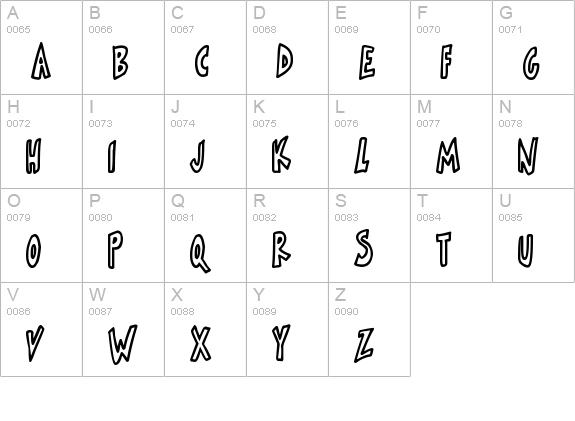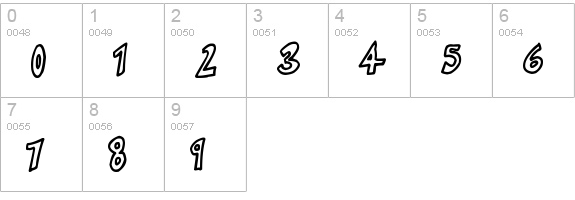
Skinnymalink is a free for personal use font in the Fancy > Comic category, designed by Darrell Flood. It has been downloaded 13 times and is available for Windows, Mac and Linux.
Skinnymalink font is a sleek and modern typeface that exudes elegance and sophistication. With its slim and stylish letterforms, Skinnymalink is perfect for adding a touch of class to any design project. This versatile font is ideal for use in branding, logos, packaging, and more.